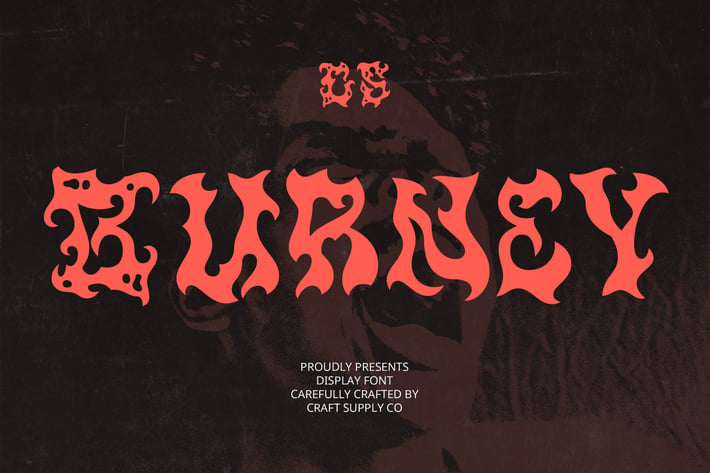
Burney – Black Metal Font
CS Burney – A Black Metal Font of Unrelenting Darkness
A Black Metal Display Font with Intense Character
CS Burney is a brutal and commanding black metal display font, crafted for designs that demand raw intensity and extreme aesthetics. Its sharp, jagged, and aggressive letterforms mirror the essence of black metal culture, evoking a sense of dark mysticism, chaos, and rebellion.
Razor-Sharp Edges and Gothic Influences
Featuring elongated strokes, menacing angles, and intricate details, CS Burney captures the cold, eerie, and atmospheric style of extreme metal typography. Inspired by traditional gothic elements and underground metal aesthetics, its spiky and distorted forms reflect the brutality and mystique of the genre, making it a perfect choice for extreme music visuals.
Unleash the Darkness with CS Burney
For designers seeking a font that exudes mysticism, horror, and the relentless energy of extreme metal, CS Burney is the ultimate choice. Its intimidating yet artistic composition makes it ideal for projects that require a sinister, high-impact, and rebellious aesthetic. Step into the abyss of darkness and let CS Burney define your vision.
A Black Metal Display Font with Intense Character
CS Burney is a brutal and commanding black metal display font, crafted for designs that demand raw intensity and extreme aesthetics. Its sharp, jagged, and aggressive letterforms mirror the essence of black metal culture, evoking a sense of dark mysticism, chaos, and rebellion.
Razor-Sharp Edges and Gothic Influences
Featuring elongated strokes, menacing angles, and intricate details, CS Burney captures the cold, eerie, and atmospheric style of extreme metal typography. Inspired by traditional gothic elements and underground metal aesthetics, its spiky and distorted forms reflect the brutality and mystique of the genre, making it a perfect choice for extreme music visuals.
Unleash the Darkness with CS Burney
For designers seeking a font that exudes mysticism, horror, and the relentless energy of extreme metal, CS Burney is the ultimate choice. Its intimidating yet artistic composition makes it ideal for projects that require a sinister, high-impact, and rebellious aesthetic. Step into the abyss of darkness and let CS Burney define your vision.